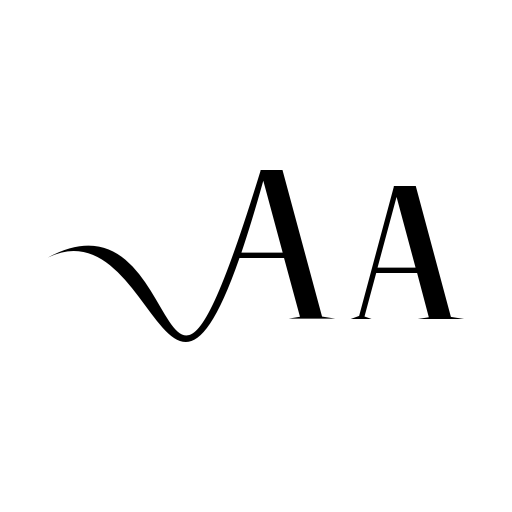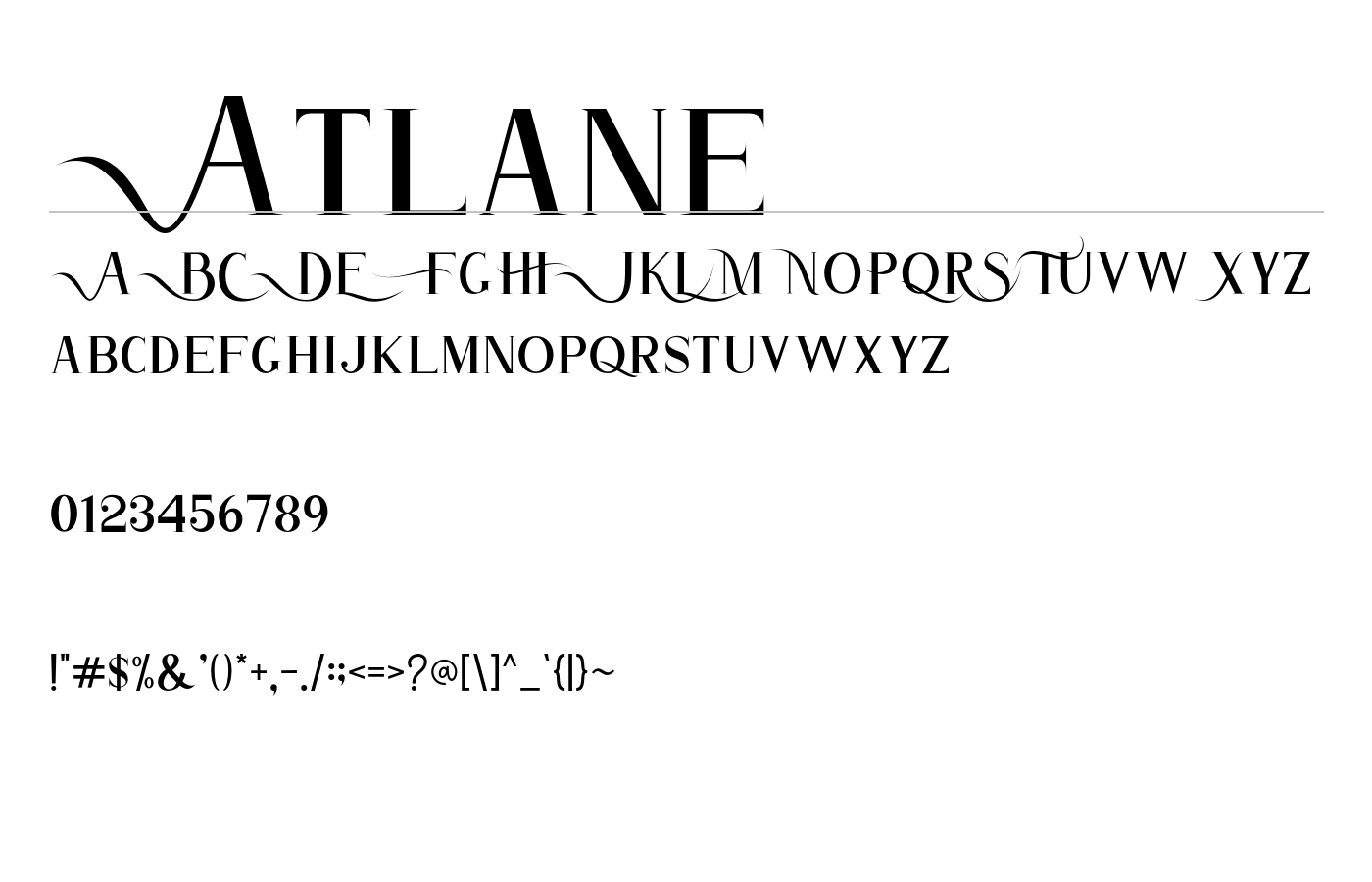
Atlane is a slender, elegant serif font characterized by its high contrast between thick and thin strokes and distinctive, sweeping flourishes that add an artistic flair. Its tall x-height and refined, sharp serifs evoke a sophisticated, modern luxury feel, making it ideal for upscale branding, fashion editorials, and stylish headlines. This font combines timeless elegance with contemporary design, perfect for projects seeking a bold yet graceful statement.
Atlane Font
About Atlane Font